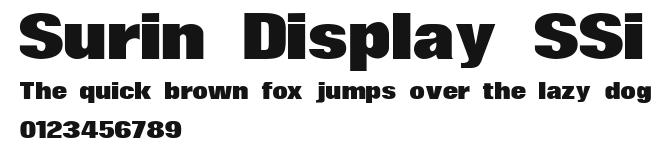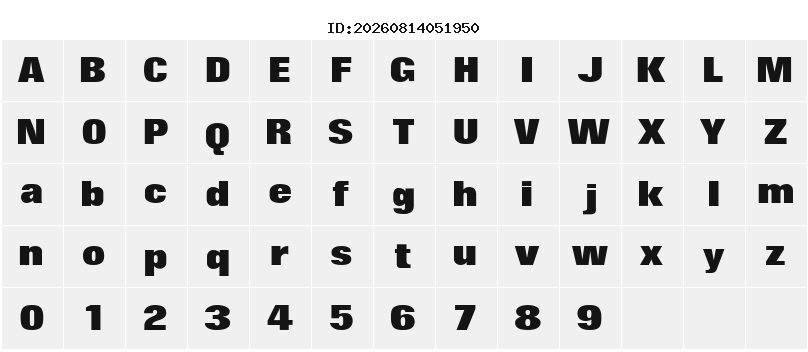
• Font Name: Surin Display SSi
Surin Display SSi.ttf is a modern, elegant sans-serif font designed for ultimate readability and visual harmony. Perfect for branding, headlines, web design, and print materials.